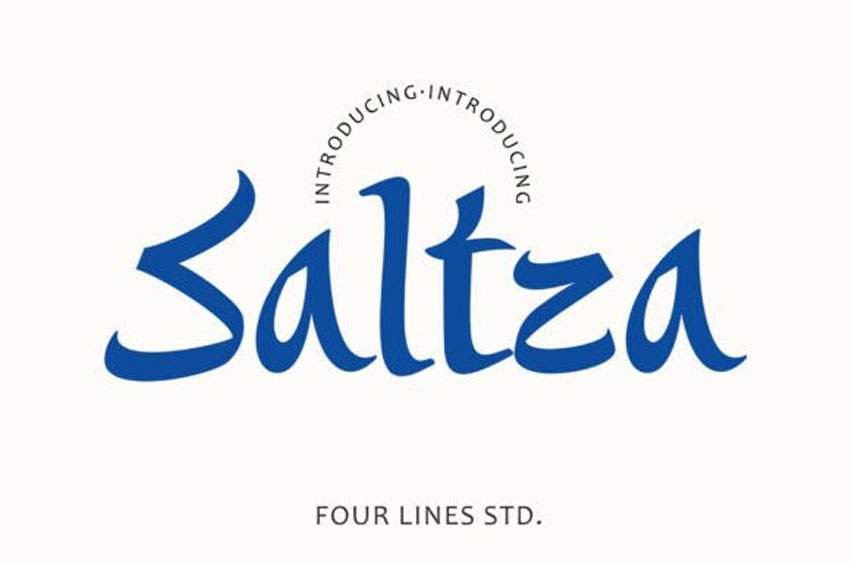
Saltza Font
Saltza Font is a bold, expressive display typeface that balances sharp, angular terminals with smooth, sweeping curves.
This Saltza typeface has a distinct “cultural-modern” vibe, reminiscent of contemporary Mediterranean or high-fashion aesthetics. Its unique construction gives it a rhythmic, almost dance-like quality that feels both energetic and incredibly stylish.
This Saltza font is a fantastic choice for travel branding, restaurant menus, and fashion editorial headlines. Because of its strong personality, the Saltza typeface can carry a design on its own—simply place it over a solid color or a minimalist photo for an instant “high-design” look.
It’s perfect for creators who need a font that is both legible and highly decorative, bridging the gap between traditional art and modern commercial design.